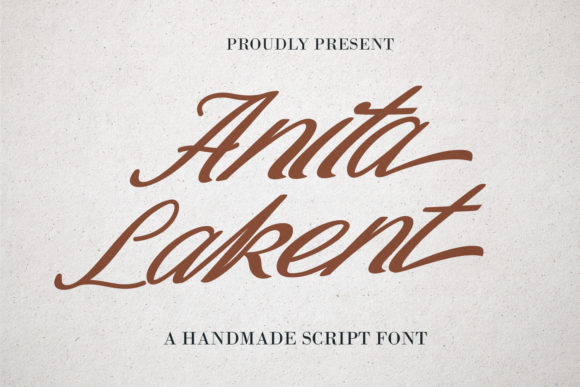
The Designer’s Dream Come True: Anita Lakent Font
I’ll never forget the moment I stumbled upon the Anita Lakent font while working on a project for a high-end client. I had been searching for the perfect handwritten font to give it that extra oomph, but nothing seemed quite right. That was until I laid eyes on Anita Lakent – an exquisite, classy calligraphic font that instantly stole my heart. In this article, I’ll share my love for this beautiful font, its features, and how to make the most of it in your designs.
- ✅ Elegant, classy calligraphic influences that add a touch of sophistication to any project
- ✅ Contemporary and fresh feel that makes it perfect for modern designs
- ✅ Extensive character set, including OpenType features and glyphs
- ⚠️ Some users may find the font a bit too ornate for very casual or playful designs
- ⚠️ Limited availability of certain characters, such as ligatures
The Story Behind Anita Lakent
Anita Lakent was designed by a talented type designer who drew inspiration from traditional calligraphy and modern handwriting. The font’s creator aimed to craft a beautiful, elegant script that would feel both classic and contemporary. With its extensive character set and OpenType features, Anita Lakent has become a favorite among designers and crafters.
| Author | typehome.std |
| What makes Anita Lakent unique? | Anita Lakent’s unique blend of traditional calligraphy and modern handwriting makes it stand out from other script fonts. |
| Is Anita Lakent suitable for body text? | While Anita Lakent is highly legible, it’s best suited for headlines, titles, and short paragraphs. For longer body text, a more straightforward font may be more suitable. |